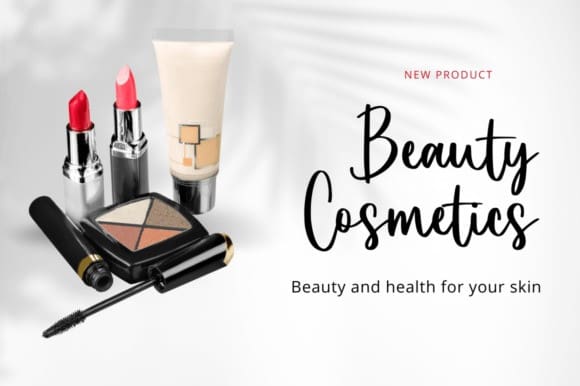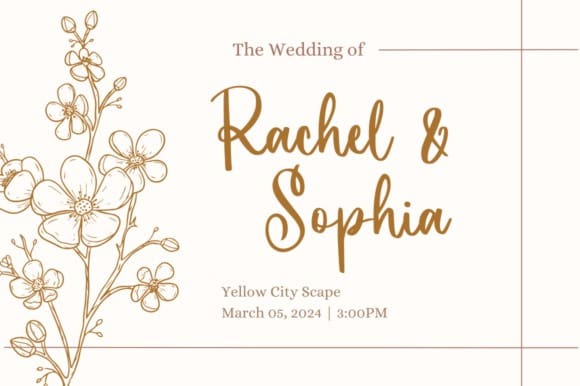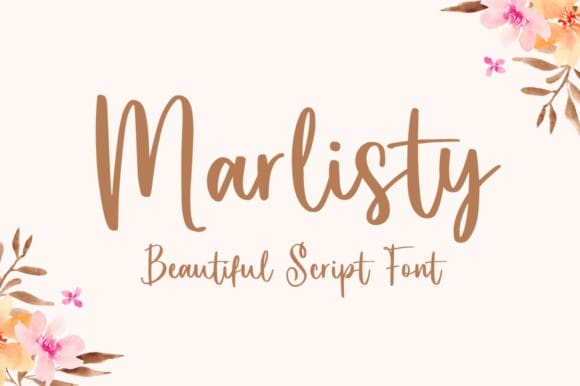
Marlisty Script Font
Marlisty Script Font, a font that epitomizes the beauty of script typography. With its graceful flourishes and flowing curves, this font exudes elegance and sophistication. Perfect for adding a touch of refinement to wedding invitations, branding, or elegant packaging. “Marlisty” elevates your designs with its timeless beauty, making every word a work of art.